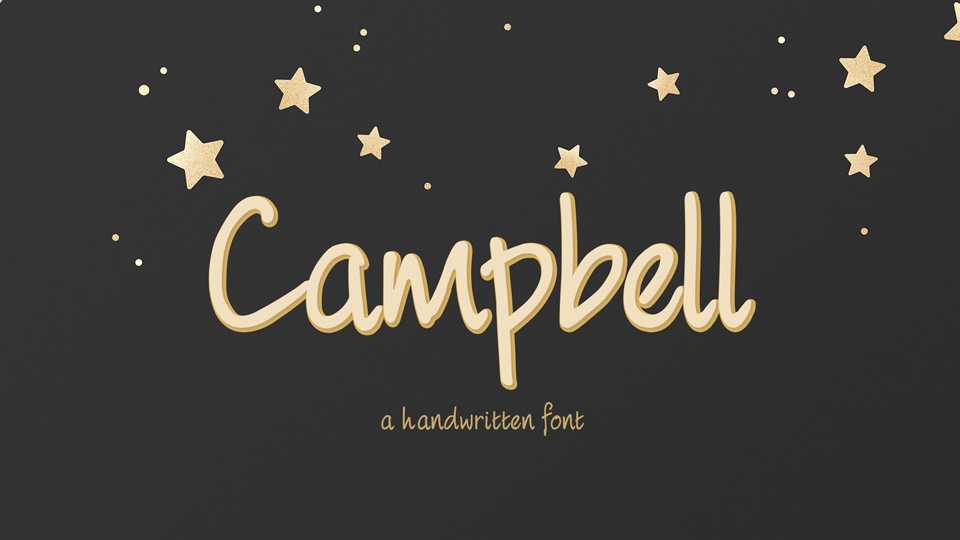
Download Campbell font, a simple casual typeface based on an angular handwritten style. With its natural feel Campbell is perfect for notes, quotes, cards and craft projects.
Designer: Ed Merritt